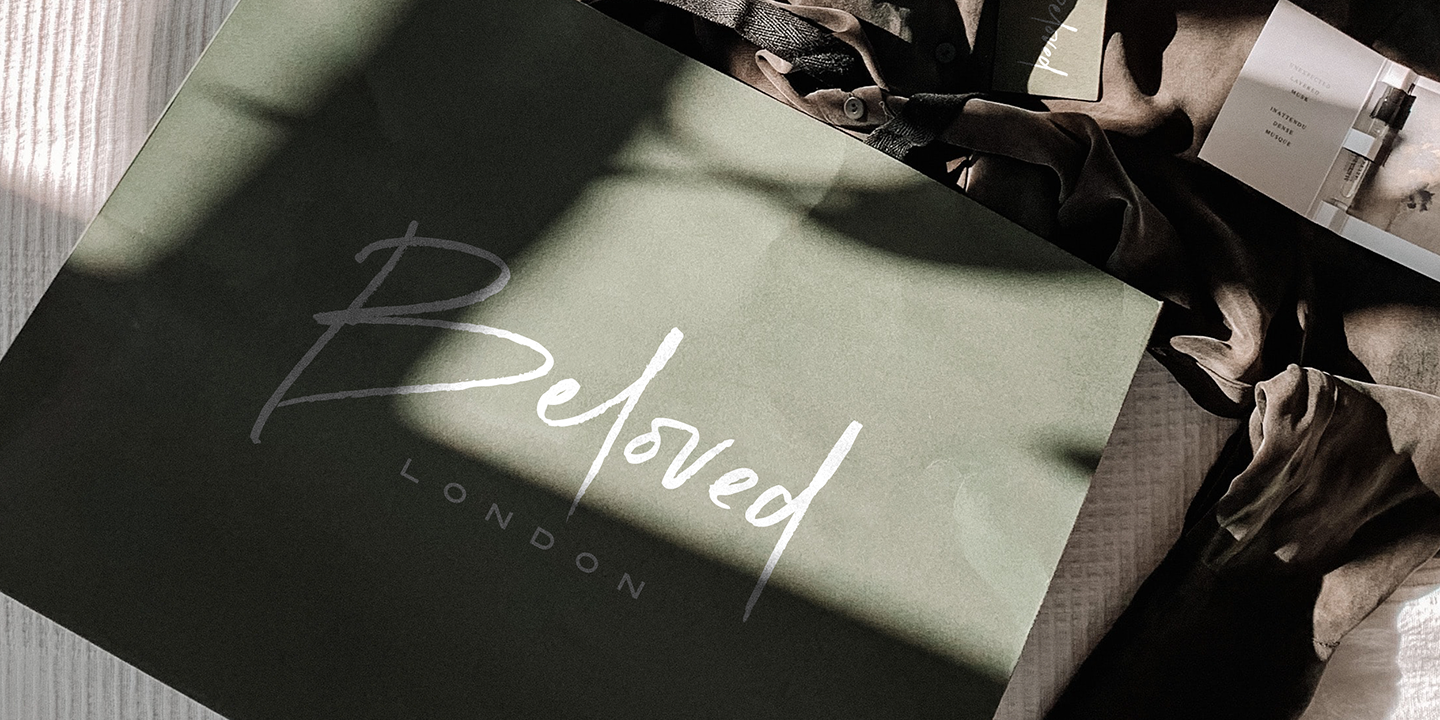
About the Lovebright Font
About Lovebright Font Family Lovebright is an expressive, untamed handwritten font, with exaggerated descenders and loops, It’s an engaging and charming choice for signature style logos, personable branding, display text, handwritten quotes & letters, and blog/social media posts, Lovebright includes a full alternate set of upper & lowercase characters, included as it’s own separate fonts
Use the alternate characters for a different text layout, or mix with the regular version to avoid repeating letters and recreate naturally inconsistent handwriting, Lovebright also includes 22 ligatures, these double letter combinations will help letters connect and flow more naturally